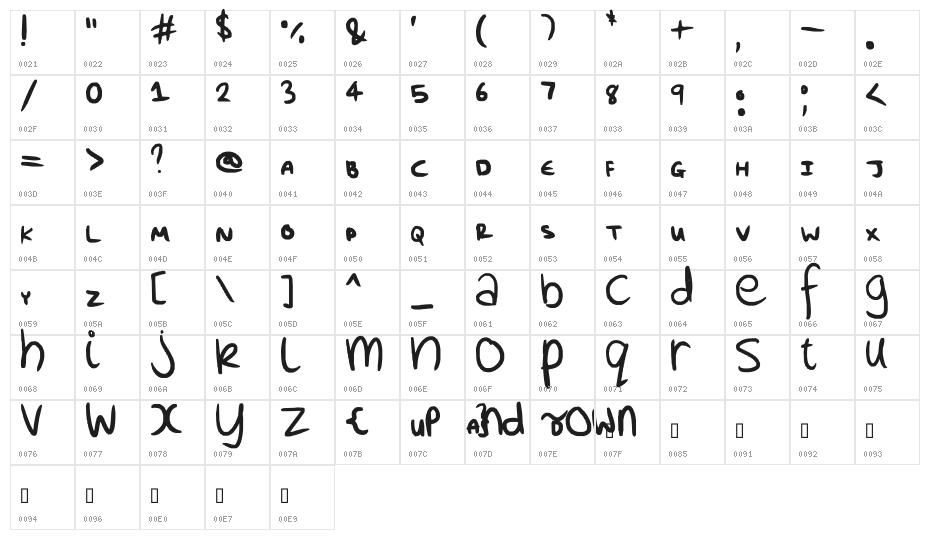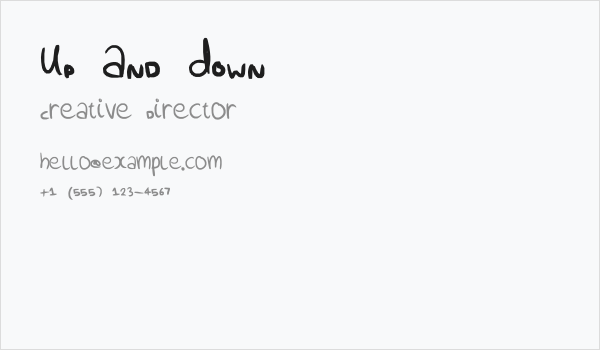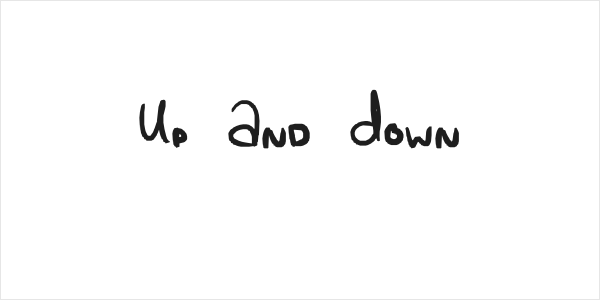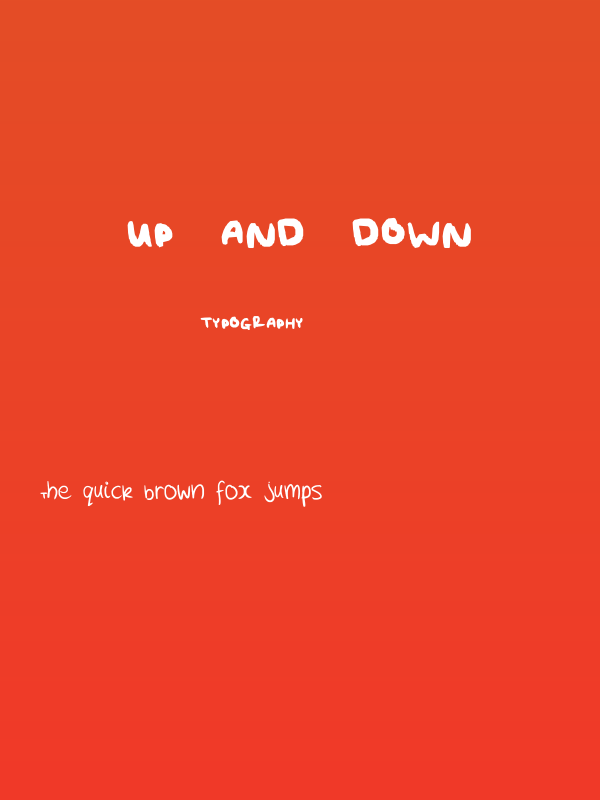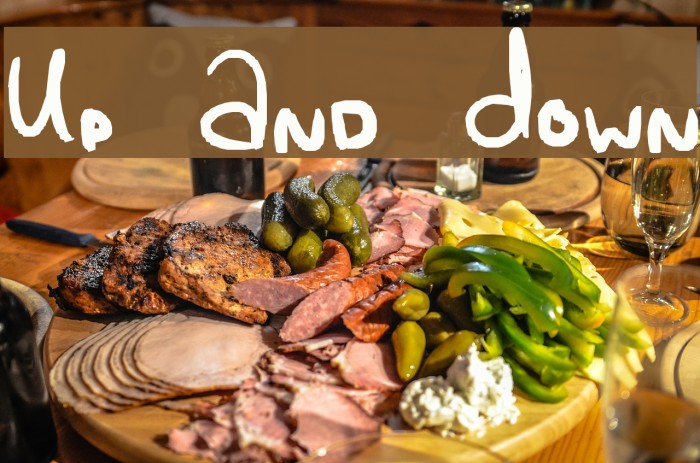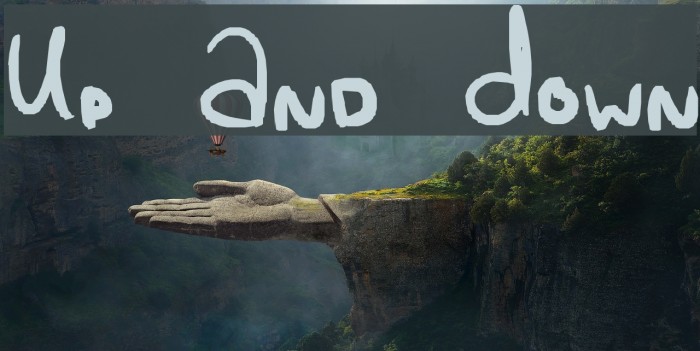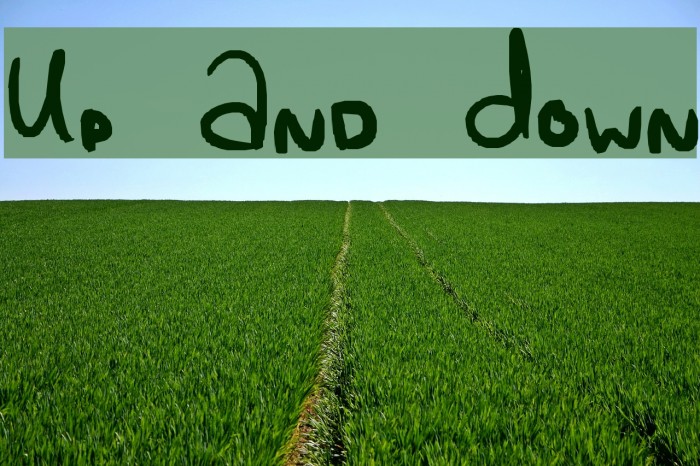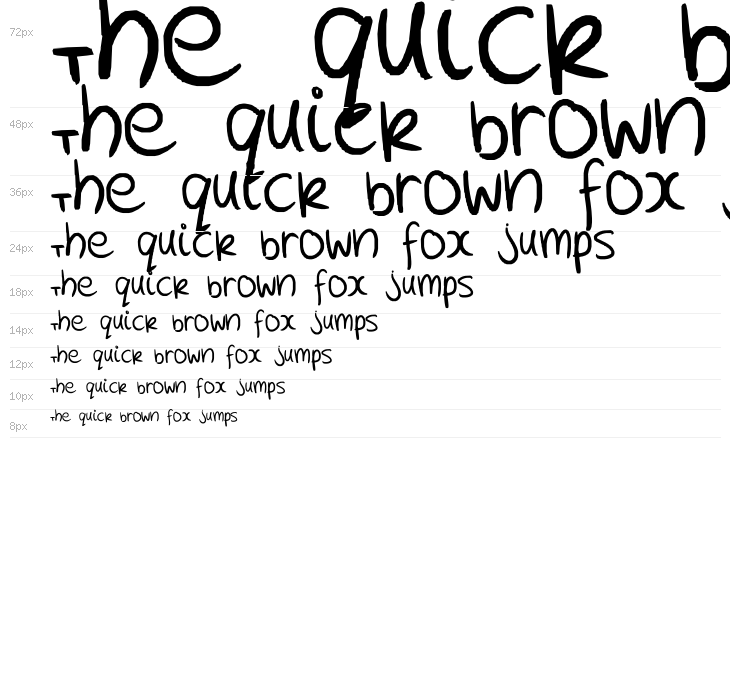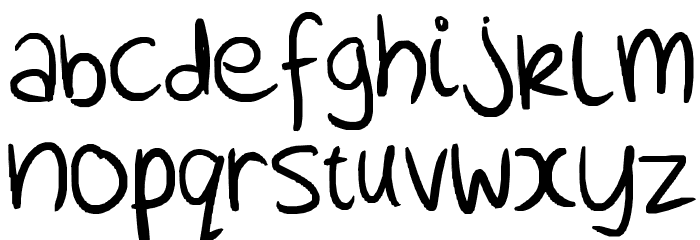
uP aND dOWN Font
This font features a playful and dynamic handwritten style, characterized by its bold and expressive strokes. The letters have a casual, informal appearance, with a slight slant and varying stroke widths that add to its lively personality. The uppercase letters are bold and prominent, while the lowercase letters maintain a consistent flow, enhancing readability. The numerals are clear and distinct, matching the overall whimsical style. Special characters are creatively integrated, maintaining the font's energetic and spontaneous feel. This font is ideal for projects that require a personal touch or a fun, engaging aesthetic.
| Use Case | Logos, Headlines, Informal Invitations |
| Proposed Projects | Ideal for greeting cards, children's books, playful branding, and social media graphics. |